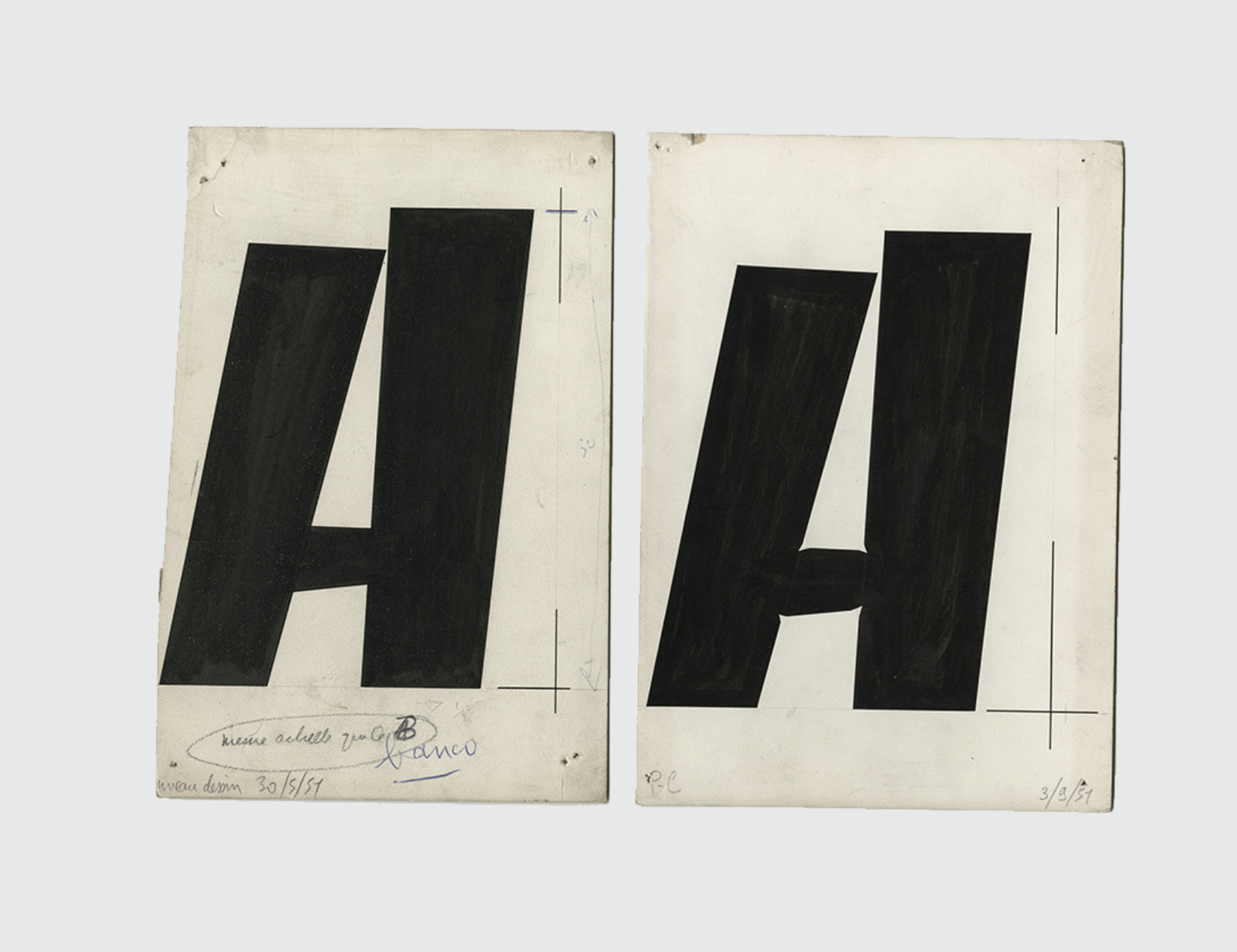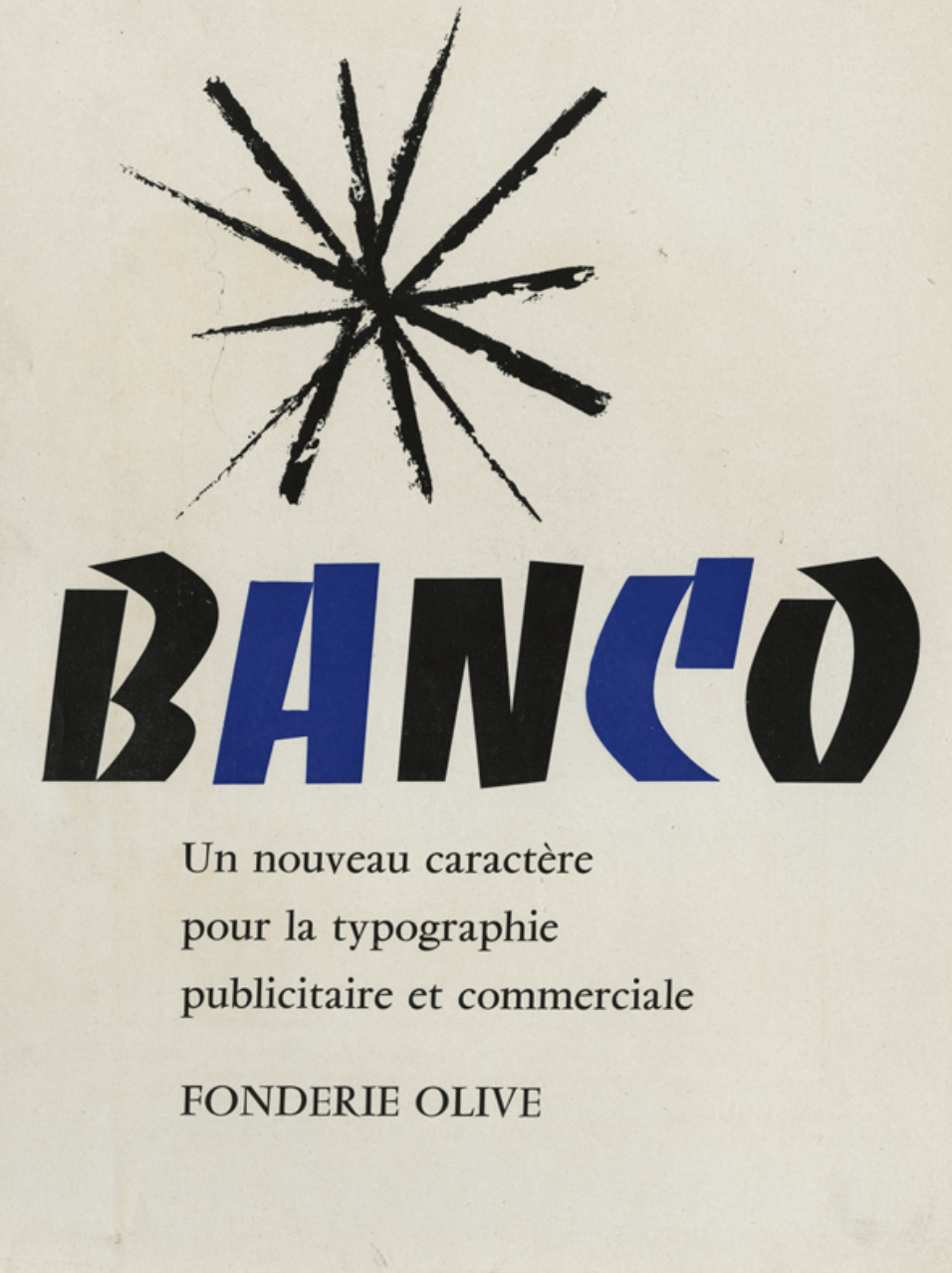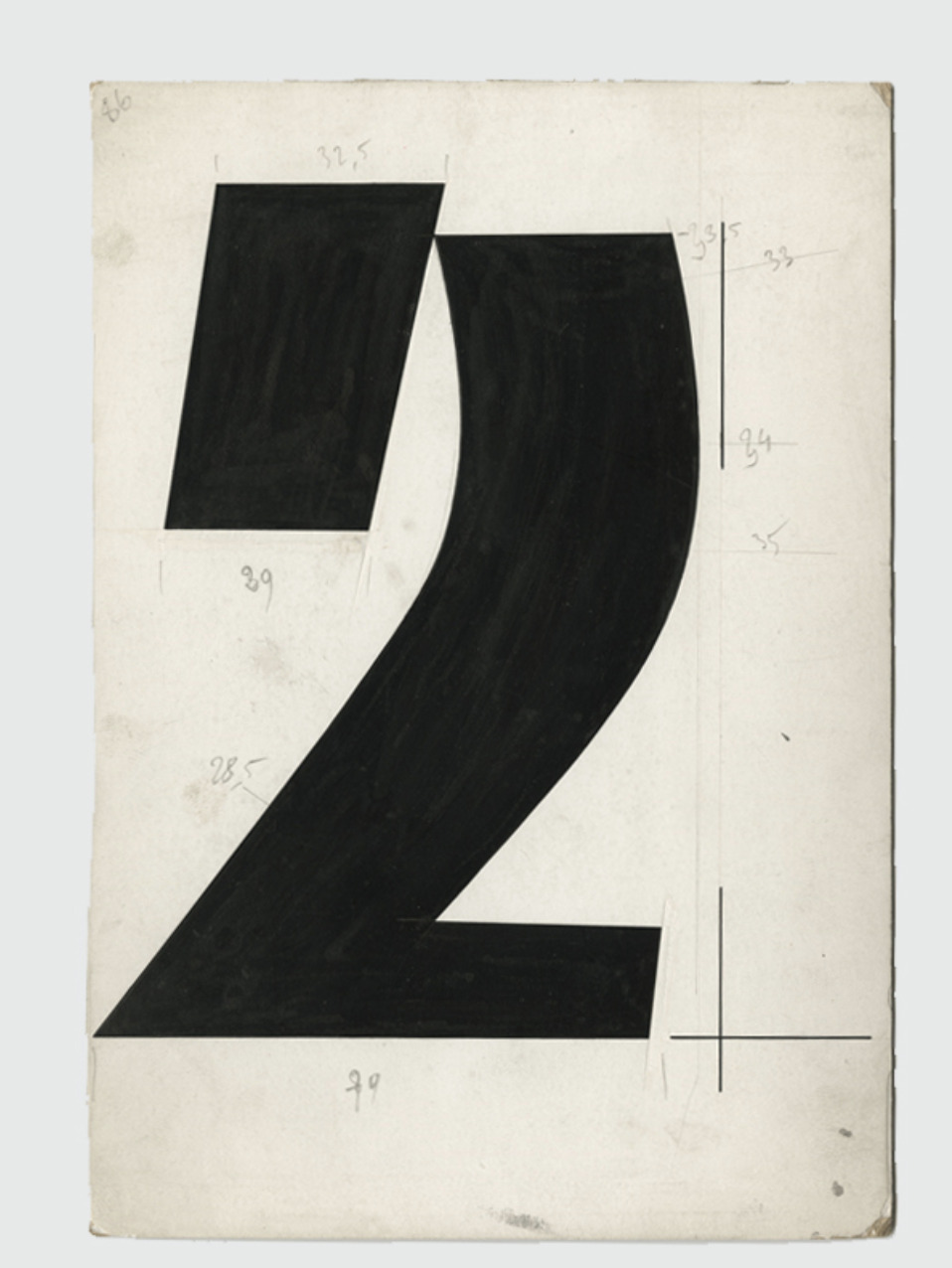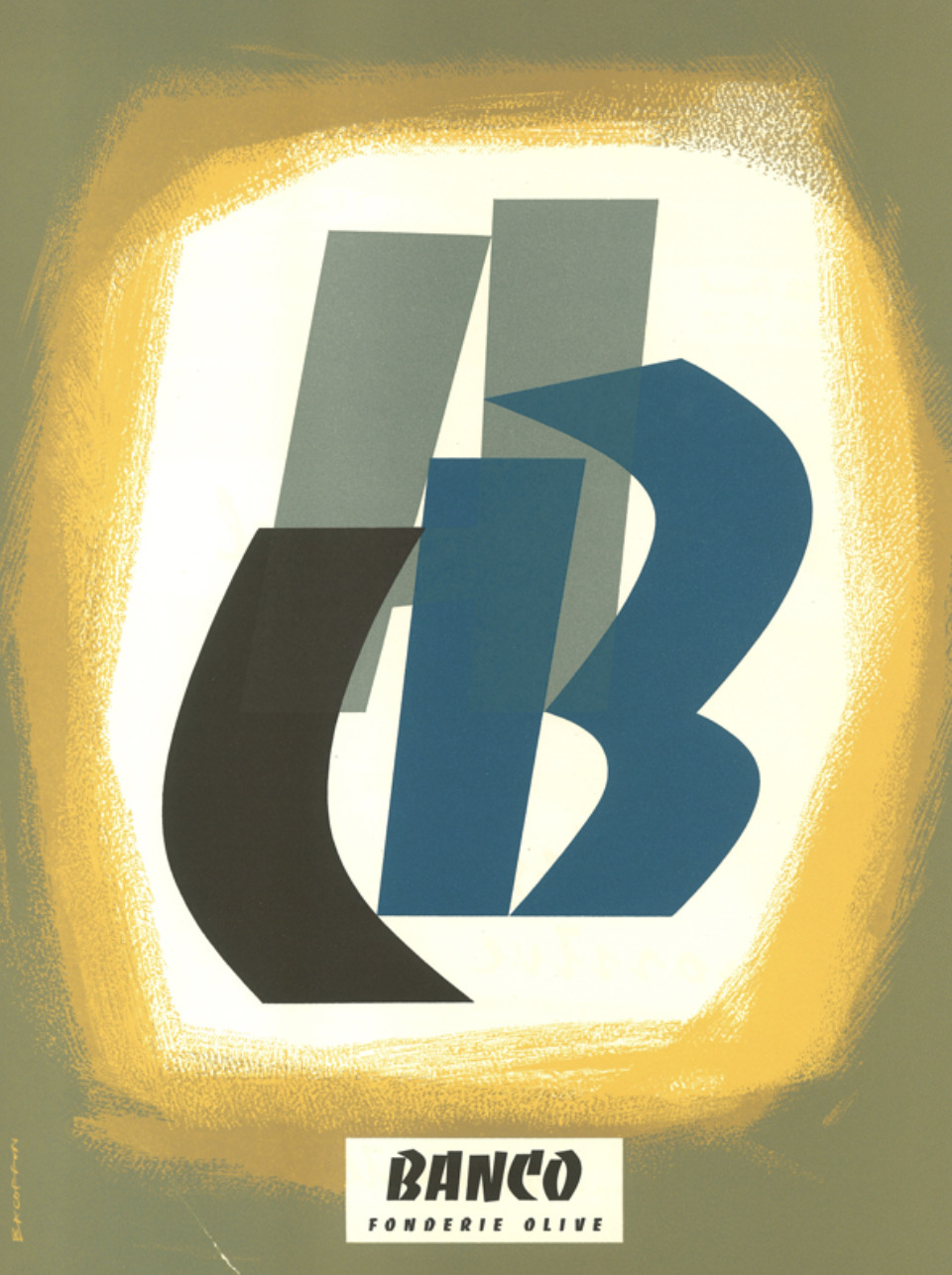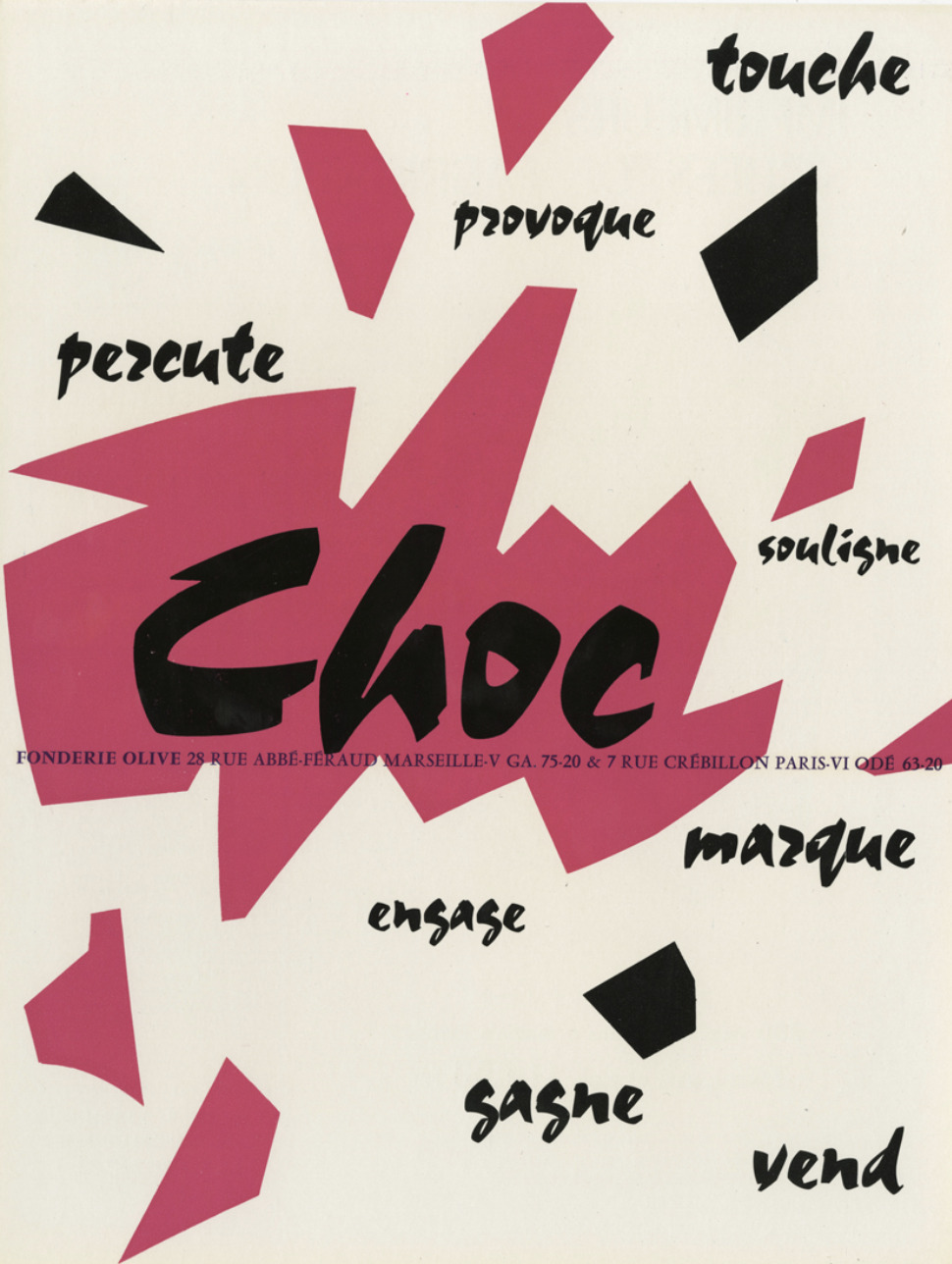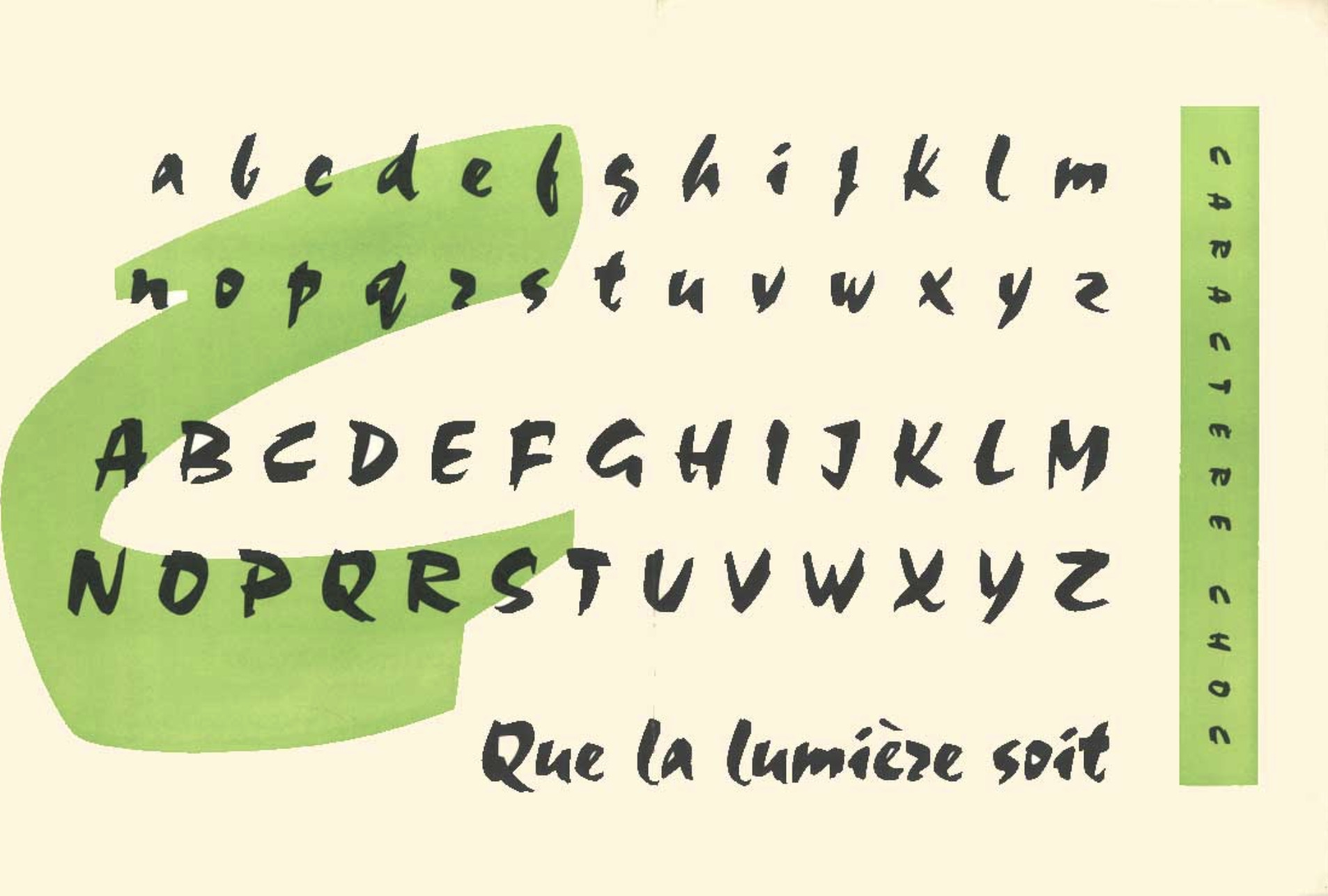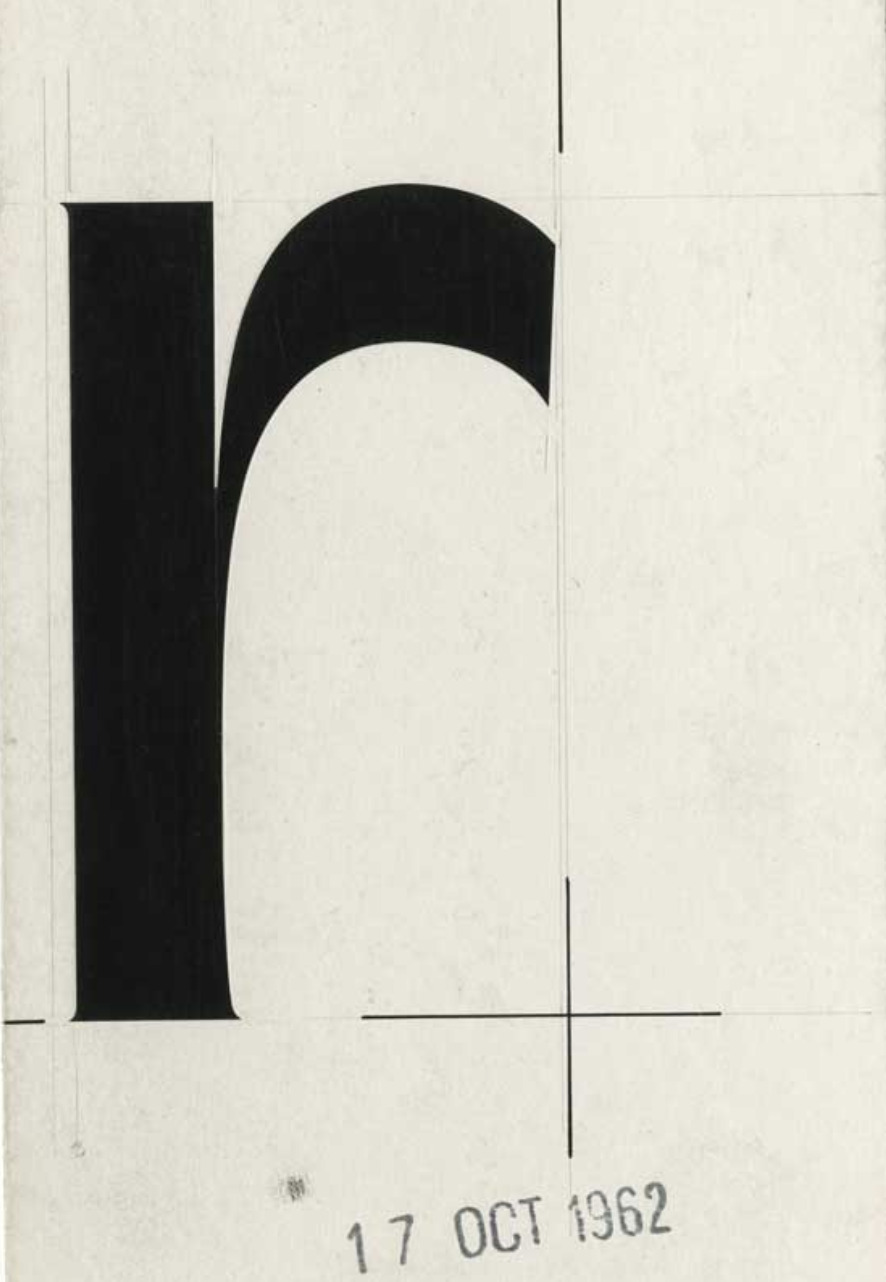
Roger Excoffon: 10 things to know about
1. One of our favorite typeface designers of the mid-century, the painter & philosopher Roger Excoffon was born on the 7th of September, 1910, in Marseille, France.
2. Excoffon studied law at the University of Aix-en-Provence, and then moved to Paris to apprentice in a print shop.
3. In 1947, he formed his own advertising agency and concurrently became design director of a small foundry in Marseille called Fonderie Olive. He aksi co-founded the prestigious Studio U+O, named in reference to "Urbi et Orbi."
4. Chambord is the first type by Excoffon who went on to design many groundbreaking hits for Olive. Chambord was created to compete with Cassandre’s Peignot (1937) and it was the subject of a Deberny & Peignot lawsuit.
5. Excoffon's best-known faces are Mistral and Antique Olive, the latter which he designed between 1962 and 1966. Air France, one of Excoffon's largest and most prestigious clients, used a customized variant of Antique Olive in its wordmark and livery until 2009, when a new logo was introduced.
6. Banco and Choc are also highly influential. Choc (French: “shock”) is a display script typeface designed by Excoffon in 1955. The typeface grew out of Excoffon's repeated and ultimately abandoned efforts to make a bold of his typeface Mistral. This mystery quirky calligraphic font that took over the Big Apple per the New York Times “is a typeface that draws the eye with its inherent contradictions.”
“Choc is far from the most popular typeface on the storefronts of New York, but it can still be found everywhere and in every borough...It may be distorted, stacked vertically, or shoehorned into a cluster of other typefaces. But even here Choc remains clear and articulate, its voice deep and friendly, its accent foreign, perhaps, yet endearing. You've already seen it, probably repeatedly, like a stranger you recognize from your morning commute” reports NYT.
7. Maybe it's because of this organic vibrancy not found in similar sans-serif types of the period that make his work so powerful to the eye as Excoffon's typefaces gave voice to an exuberant body of contemporary French and European graphic design.
8. “Excoffon’s work is a central part of the personality of post-WWII France — the three decades that the French call les trente glorieuses” writes Type@Cooper of Bruce Kennet's ode to Excoffon's work.
A massive portfolio of work that “rapidly found its way into the very fabric of everyday life, visible in the tiniest villages of rural France on the awnings of beauty parlors and exterior signs of garages” during the 1950s and ’60s.
“Beyond his printing types, Excoffon also expressed the fundamental spirit of the times through his posters for Air France, his work in advertising, and his graphic design program for the 1968 Winter Olympics in Grenoble. He was a prime mover in les Rencontres de Lure, France's equivalent of the Aspen Design Conference” notes Bruce Kennet's intro to his must-watch presentation, available to watch here.
Poster for Winter Olympics, 1968. Illustration and design by Roger Excoffon. Text set in Antique Olive type, also designed by RE. Come see my Lubalin Lecture about RE on Oct 16th in NYC. https://t.co/rPVXT2KJdD pic.twitter.com/s9cbt1T2jo
9. “Excoffon will be the end product of all my thinking, the sum of everything that I have accumulated during my career as a typographer.” This is how typography master Roger Excoffon would describe the typeface he was working on in 1974, a daring and uncommon old style face. Unfortunately the typeface failed to be published because of a contractual misunderstanding, and Excoffon died a few years later. Based on Bruno Bernard's exploration of the Excoffon archives the following presentation during ATypI 2017 summarize his gatherings about this fascinating project. In his insightful talk Bernard tries to “identify the concepts Excoffon wanted to piece together to propose new ways of thinking about type design.”
10. Excoffon passed away on the 30th of May, 1983 with his very French legacy still conquering our aesthetics. Explore more Excoffon excellence through a dedicated website, designed by Axelle Le Sourd and Marianne Estrangin, two granddaughters of the multi-faceted artist, here.